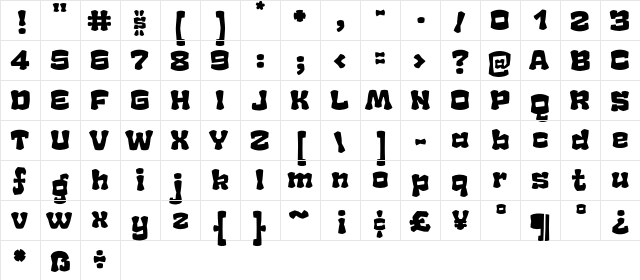
Rague Demo Regular
| Designer | Andrey Kudryavtsev + Rodrigo Araya |
Design Context for Rague Demo Typeface
Rague Demo is a composed and adaptable typeface that performs quietly and consistently across a wide range of design contexts.